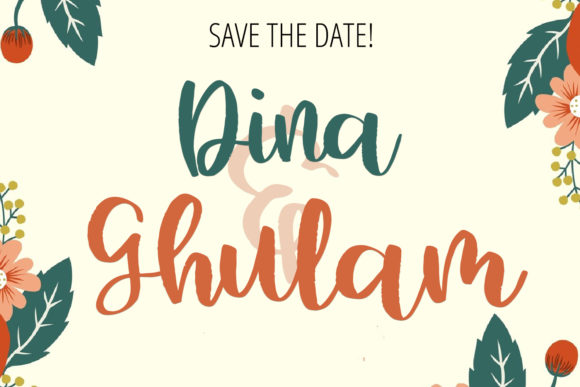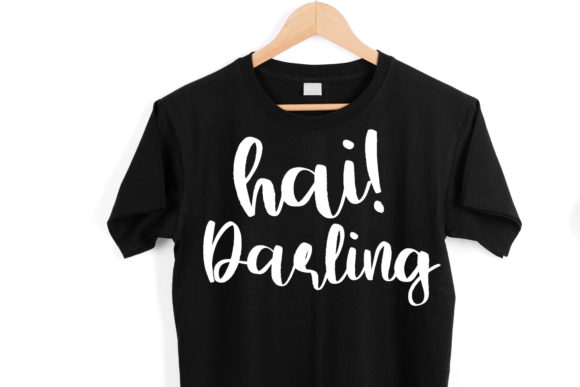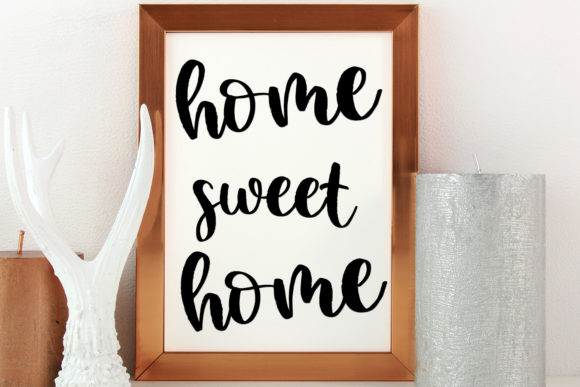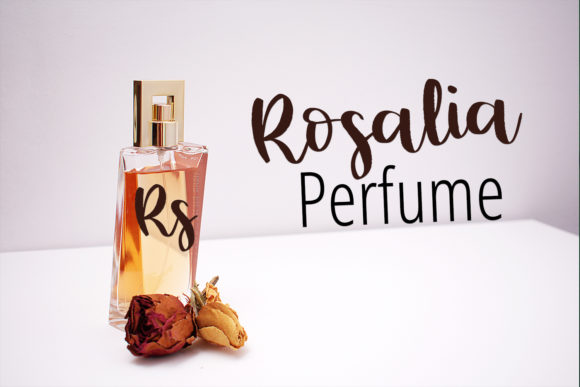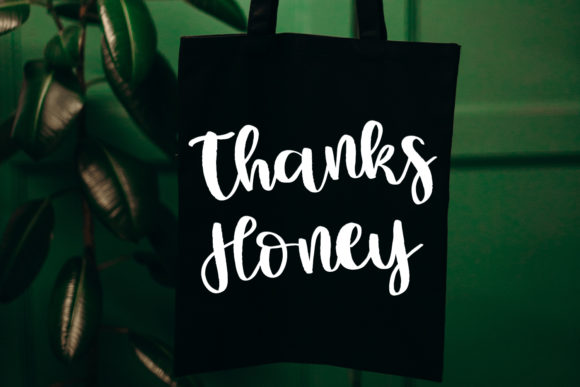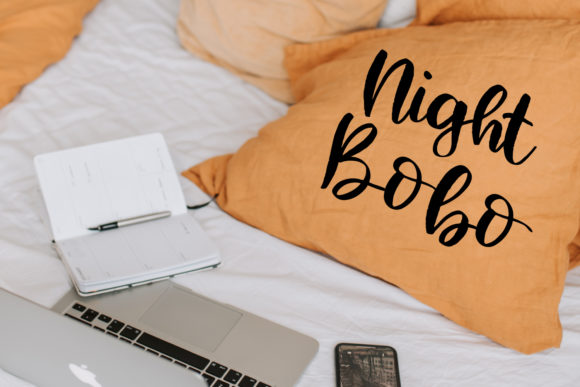
Unleash Your Creativity with Hem Yummy Font
Have you ever stared at a blank canvas, paper, or screen, feeling the spark of inspiration waiting to be ignited? That’s exactly what happened to me when I stumbled upon Hem Yummy Font. I was working on a project that needed a unique touch, something that would transport my audience to a tropical paradise. And that’s when I discovered it – a font that embodies the essence of summer, freedom, and creativity.
Hem Yummy Font is a playful, asymmetrical handwritten typeface that’s perfect for adding a personal touch to your crafting ideas. Its carefree spirit and organic feel make it an instant favorite among designers who crave something unique. Whether you’re working on a logo, invitation, or social media graphics, Hem Yummy Font is sure to elevate your designs and leave a lasting impression.
- Unique Characteristics: Hem Yummy Font features a unique, playful script design with a mix of cursive and handwritten elements, making it perfect for adding a touch of whimsy to designs.
Hem Yummy Font Review
Overall, I was excited to dive into the Hem Yummy Font. As a designer, I always appreciate unique and creative typefaces that can add personality to a project. ✨ The font’s whimsical and playful feel is perfect for illustrations, children’s books, or even food-related branding.
- ✨ The font’s quirky charm and character set it apart from more generic sans-serif fonts.
- ✨ The bold and italic styles add a nice level of versatility to the font.
- ✨ The font is highly legible, even at small sizes, making it suitable for a wide range of applications.
- ⚠️ The font may not be the best choice for formal or professional projects, as it can come across as too playful or immature.
- ⚠️ The font is not available in as many languages as some other popular fonts, which may be a limitation for global projects.
Overall, I think Hem Yummy Font is a great choice for designers looking to add some personality to their projects. While it may not be suitable for every project, it’s a fun and unique font that can add a lot of visual interest.
Hem Yummy Font is well-suited for a variety of applications, including:
- Children’s products and packaging
- Fun and playful advertising